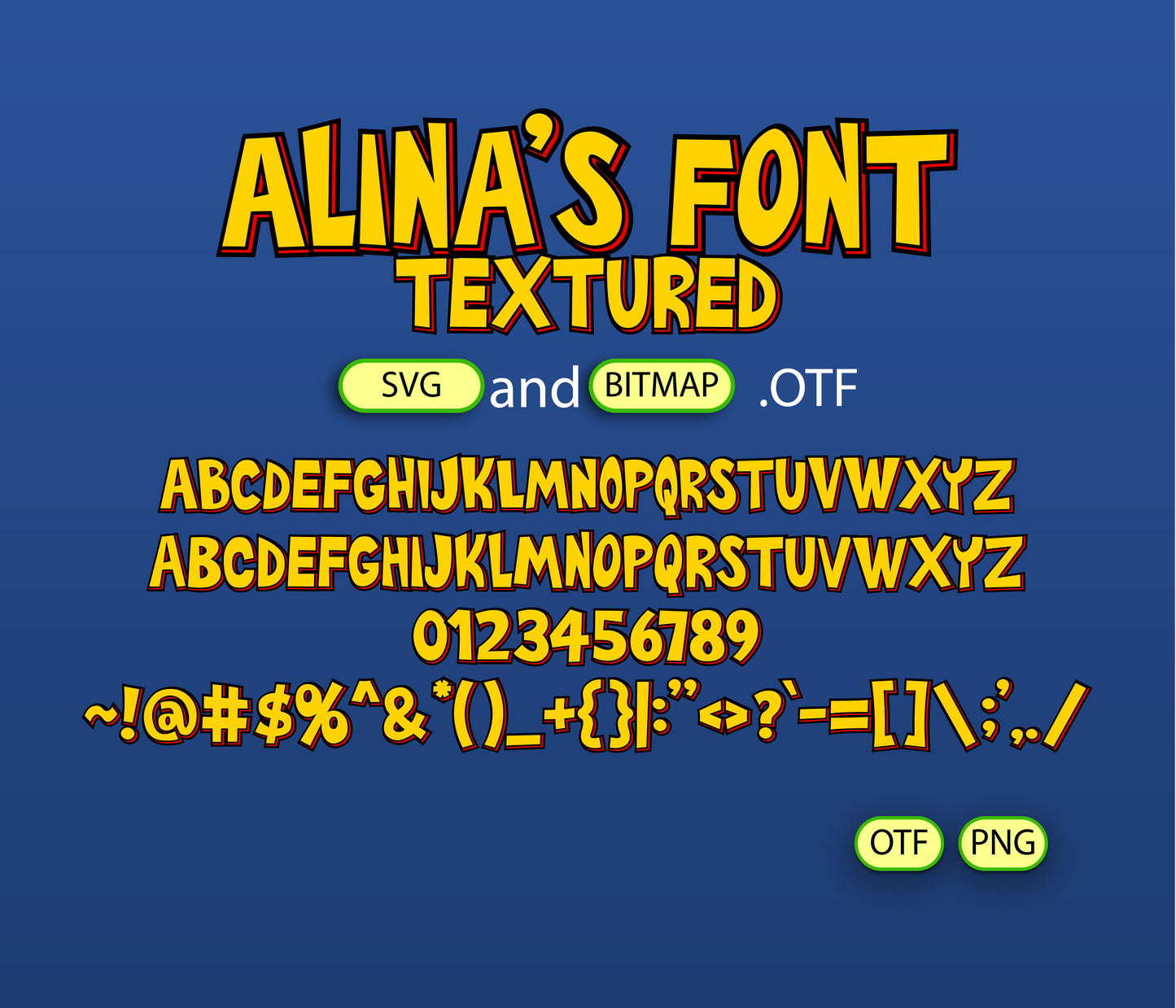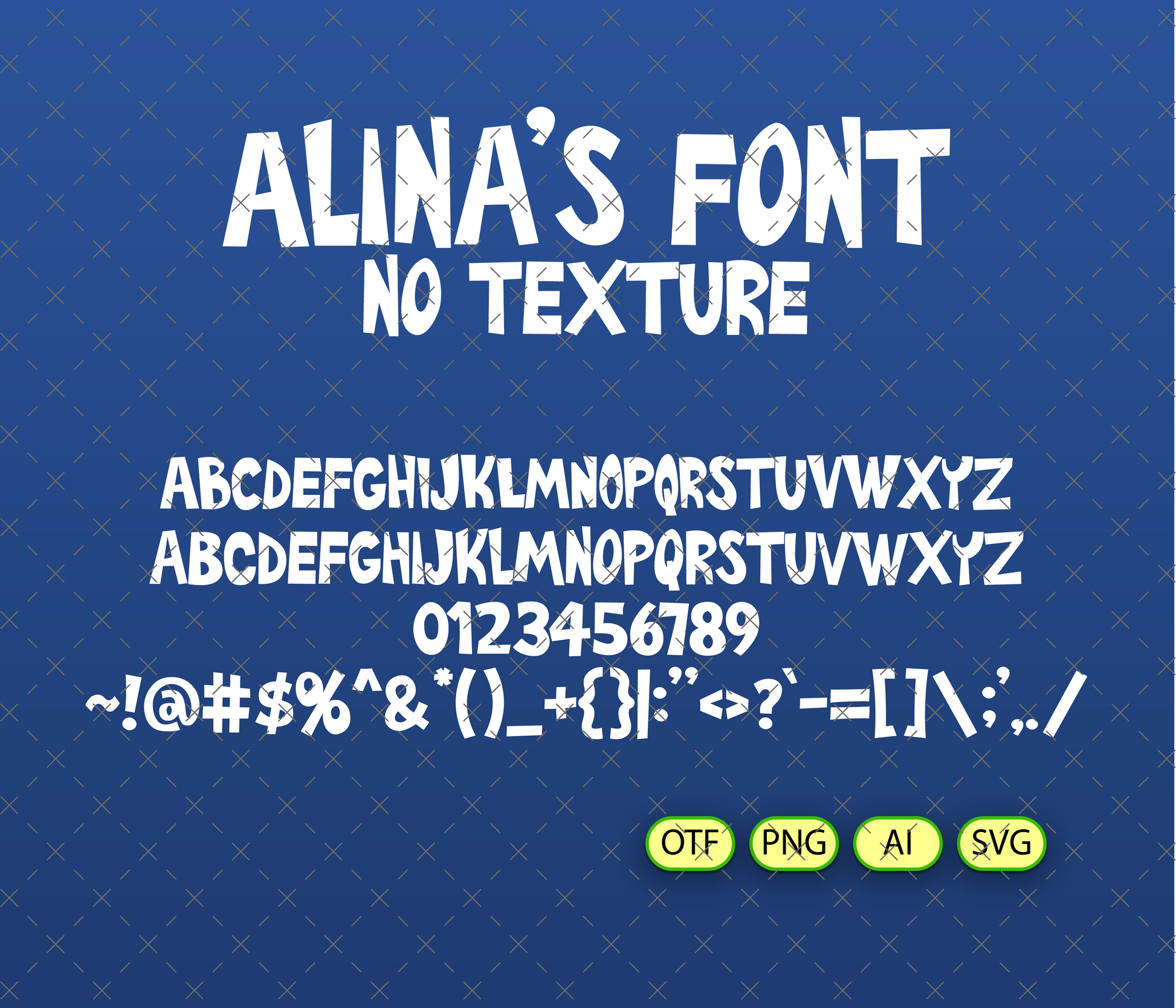
Muscle-Bound Charmer Font Textured
Step into the groovy world of pompadour swagger with our Muscle-Bound Charmer Font Textured, capturing the essence of 1990s cartoon machismo and comedic confidence. Perfect for retro animation fans, themed event planners, content creators, and creative professionals, this font brings the bold, humorous spirit of exaggerated masculinity stories to your projects. Create eye-catching invitations, merchandise, or digital content with the dramatic energy of self-assured character narratives.
Bold Typography for Retro Design & Comedy Projects
Our Muscle-Bound Charmer Font Textured features dramatic, stylized letterforms with vintage textures reflecting the world of confident cartoon characters and suburban neighborhood settings.
- Event Promotions: Create eye-catching invitations, posters, and banners for 90s nostalgia parties, animation conventions, and gatherings that capture the spirit of comedic cartoon entertainment
- Merchandise Design: Perfect for t-shirts, posters, stickers, and accessories that showcase the bold aesthetic of exaggerated confidence themes
- Digital Media: Enhance websites, blogs, and social media with humorous headers and graphics that express the swagger of retro animation
- Creative Content: Add authentic flair to fan art, character designs, and creative projects inspired by comedic machismo tales
- Personal Projects: Bring nostalgic energy to scrapbooking, DIY crafts, and home decor inspired by the world of self-assured cartoon characters
Our font pays tribute to the world of comedic cartoon stories and 1990s animation, empowering your projects with its bold and humorous spirit. Whether crafting fan materials, designing themed products, or adding a retro touch to personal projects, this font communicates the vibrant essence of exaggerated confidence entertainment. Ready to inject swagger into your creations? This font is your key to eye-catching, impactful design.